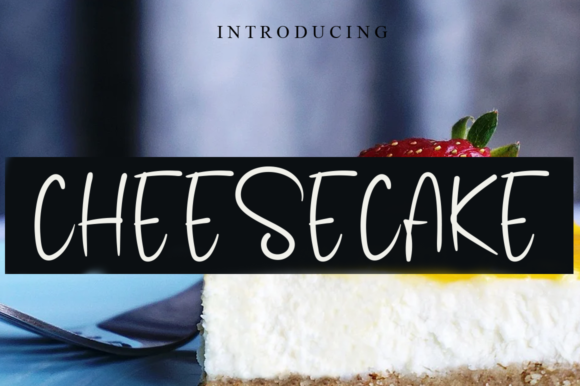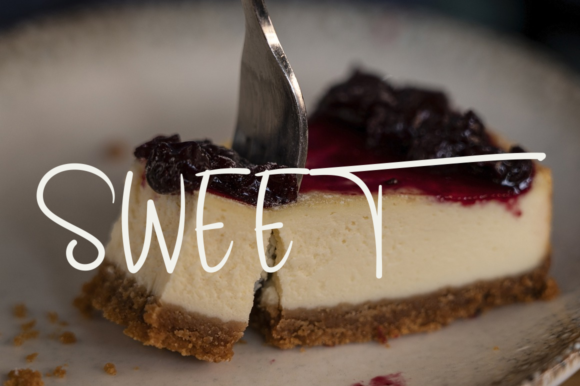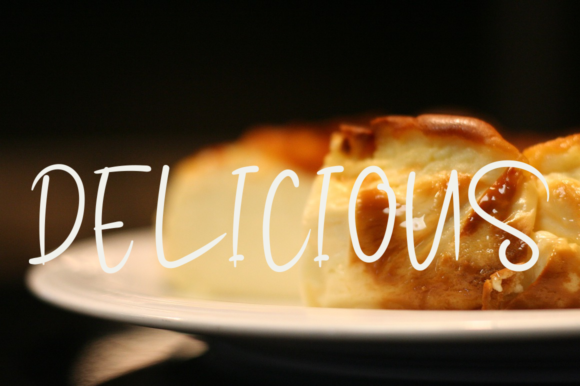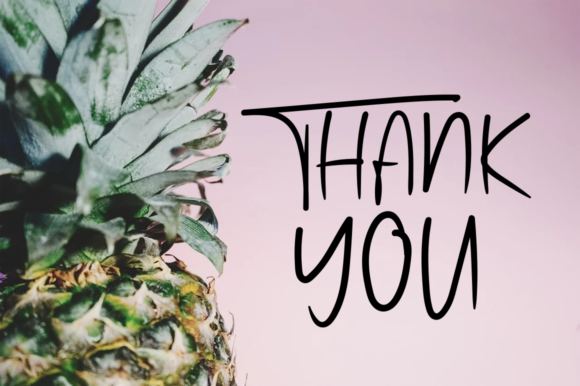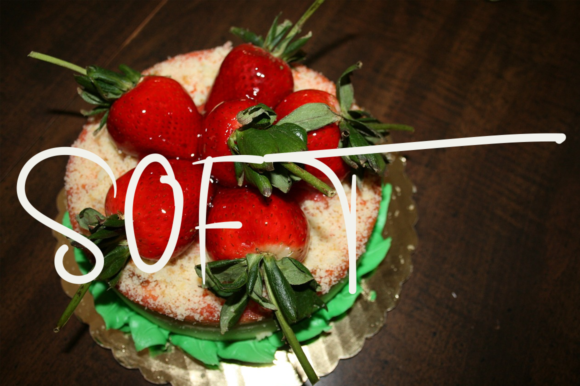
Cheesecake Font
About Cheesecake Font
Cheesecake is a cool, fresh and readable handwritten font. Its natural and unique style makes it incredibly fitting to a large pool of designs. The only limit is your imagination!